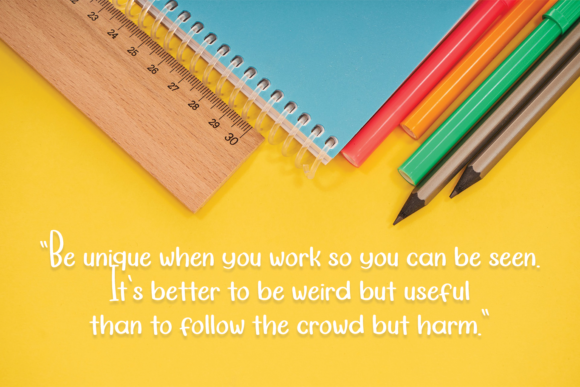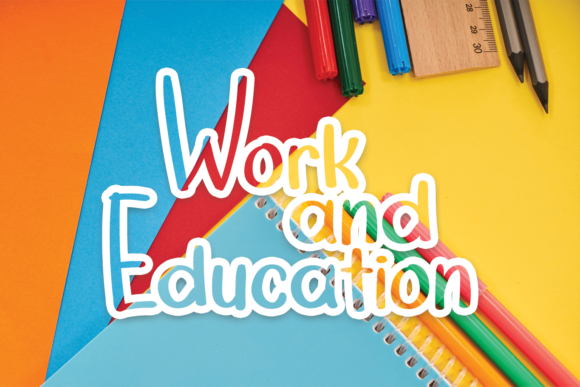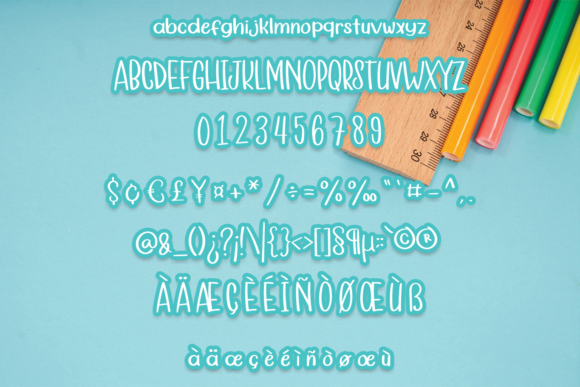
Introducing My Homework, a sweet and friendly handwritten font that brings an authentic and personal touch to your designs. With its natural and realistic appearance, My Homework adds a warm and inviting feel to any project.
This font is perfect for creating a personalized and relatable look in your designs. Whether you’re working on educational materials, children’s books, greeting cards, or any other project that requires a friendly and approachable font, My Homework will bring your ideas to life.
The handwritten style of My Homework gives it a personal and heartfelt touch, as if it was written with love and care. It creates a sense of connection and authenticity, making your designs feel more relatable and relatable to your audience.
With its sweet and friendly vibe, My Homework is versatile and adaptable to various design themes and topics. Whether you’re creating something for a school project, a parenting blog, or any other creative endeavor, this font will enhance your message and make it resonate with your audience.
The simplicity and legibility of My Homework make it easy to read and understand, ensuring that your message is conveyed clearly. Its natural strokes and consistent letterforms add to its overall charm and make it a joy to work with.
From headlines and titles to body text and captions, My Homework can be used in various design elements. It pairs well with other fonts and can be combined with illustrations or graphics to create a cohesive and visually appealing composition.
Whether you’re designing worksheets, educational posters, social media graphics, or any other creative material, My Homework will bring a personal and realistic feel to your work. Its ability to evoke a sense of warmth and connection makes it a valuable asset in your font library.
In summary, My Homework is a sweet and friendly handwritten font that adds an authentic and personal touch to your designs. Its versatility, legibility, and ability to evoke a personal and realistic feel make it a valuable asset in your font library. So, let your creativity flow and bring a personal touch to your designs with My Homework!